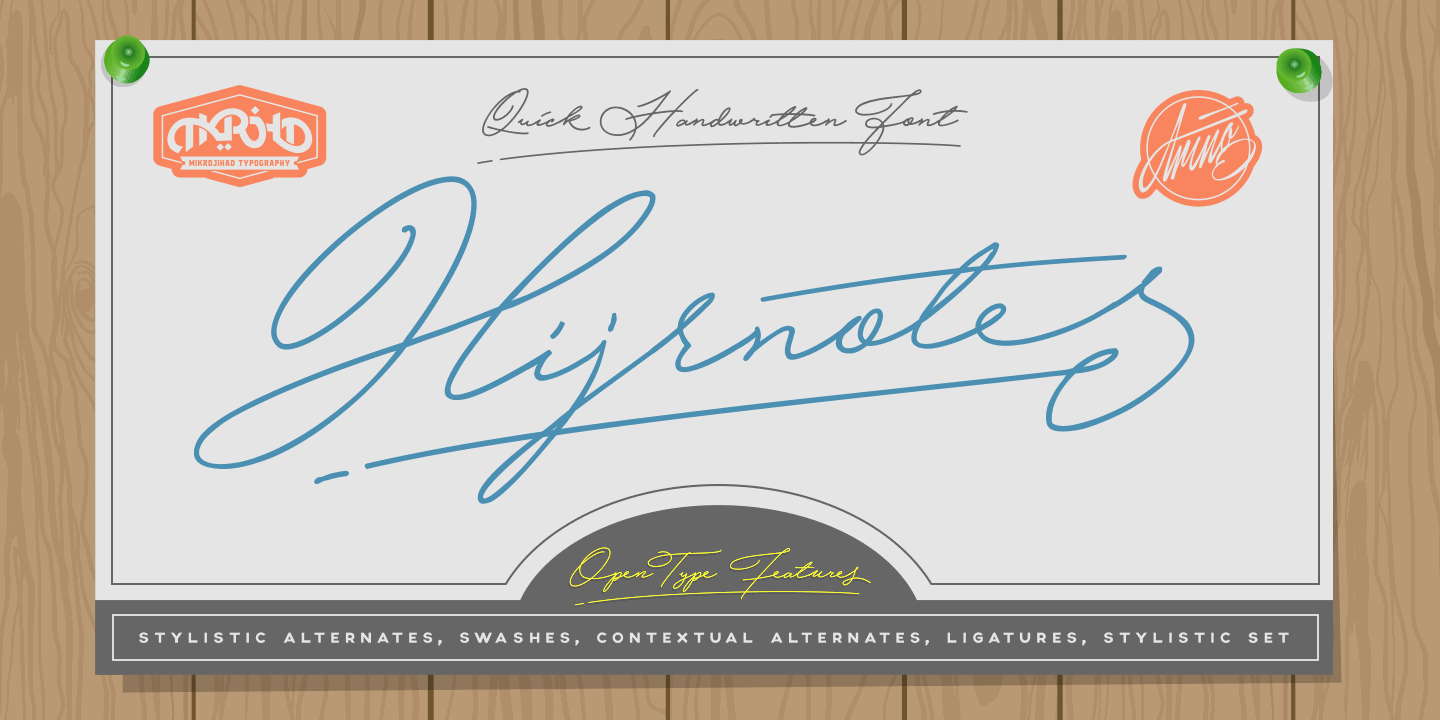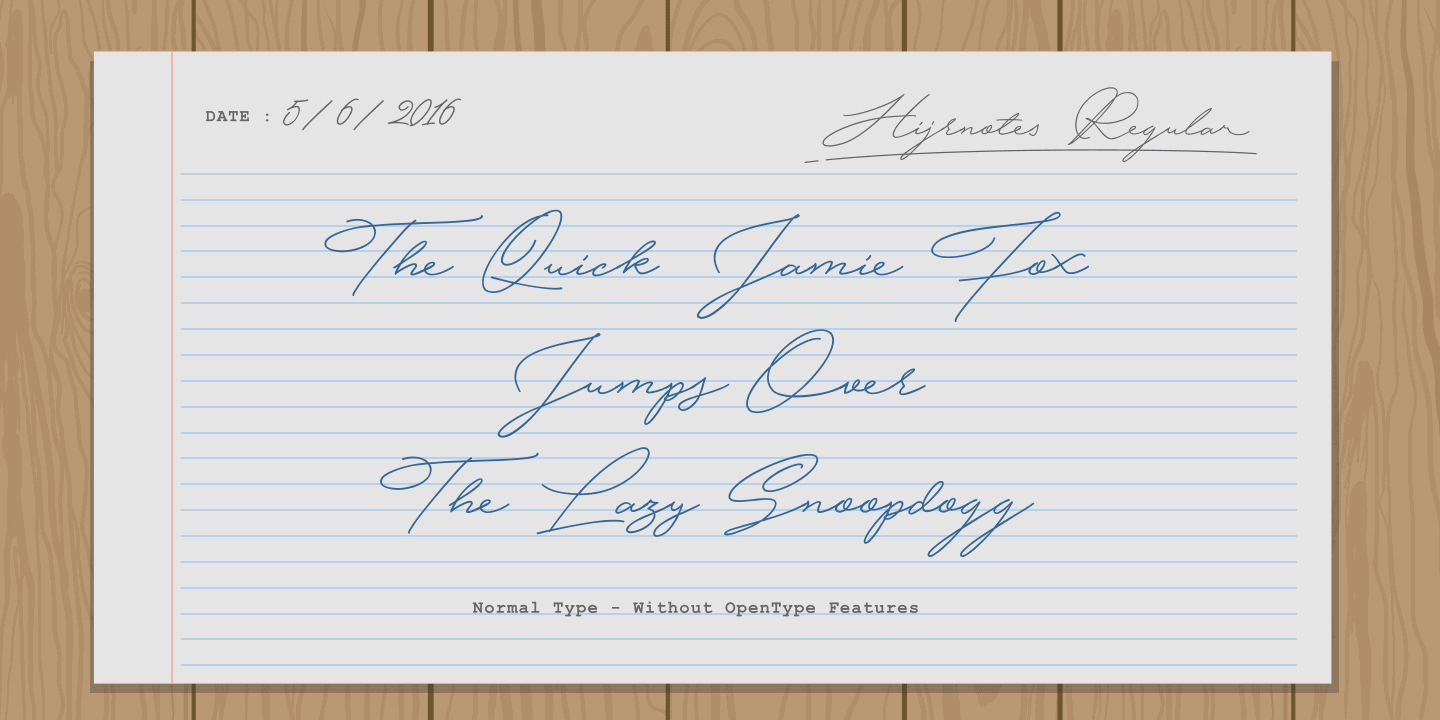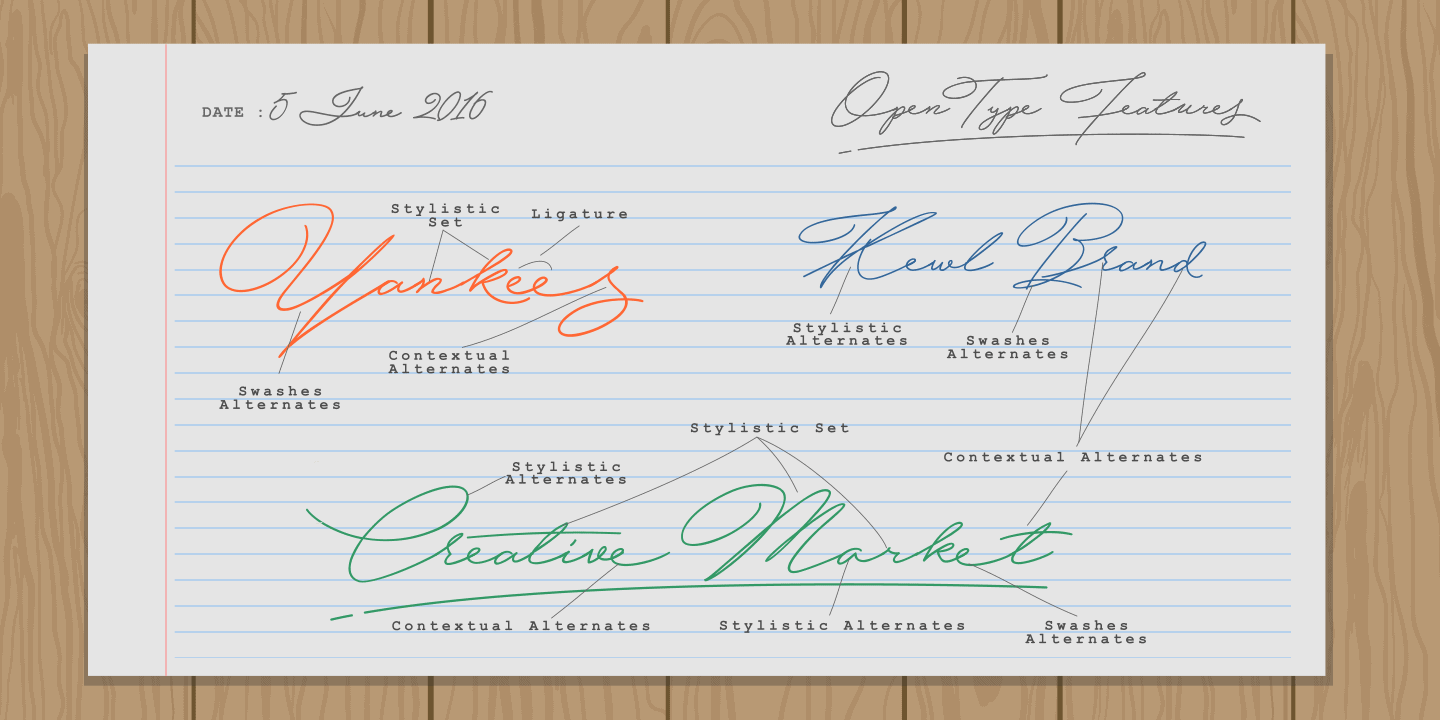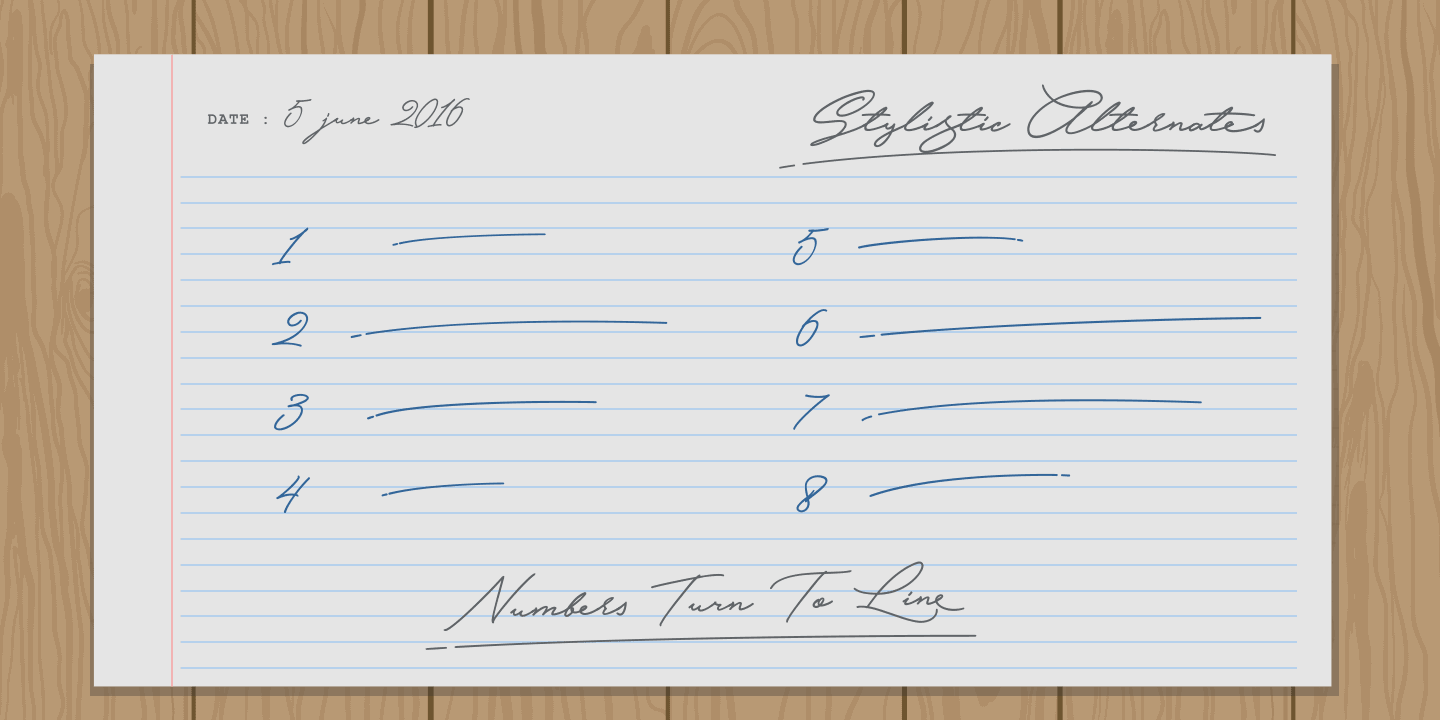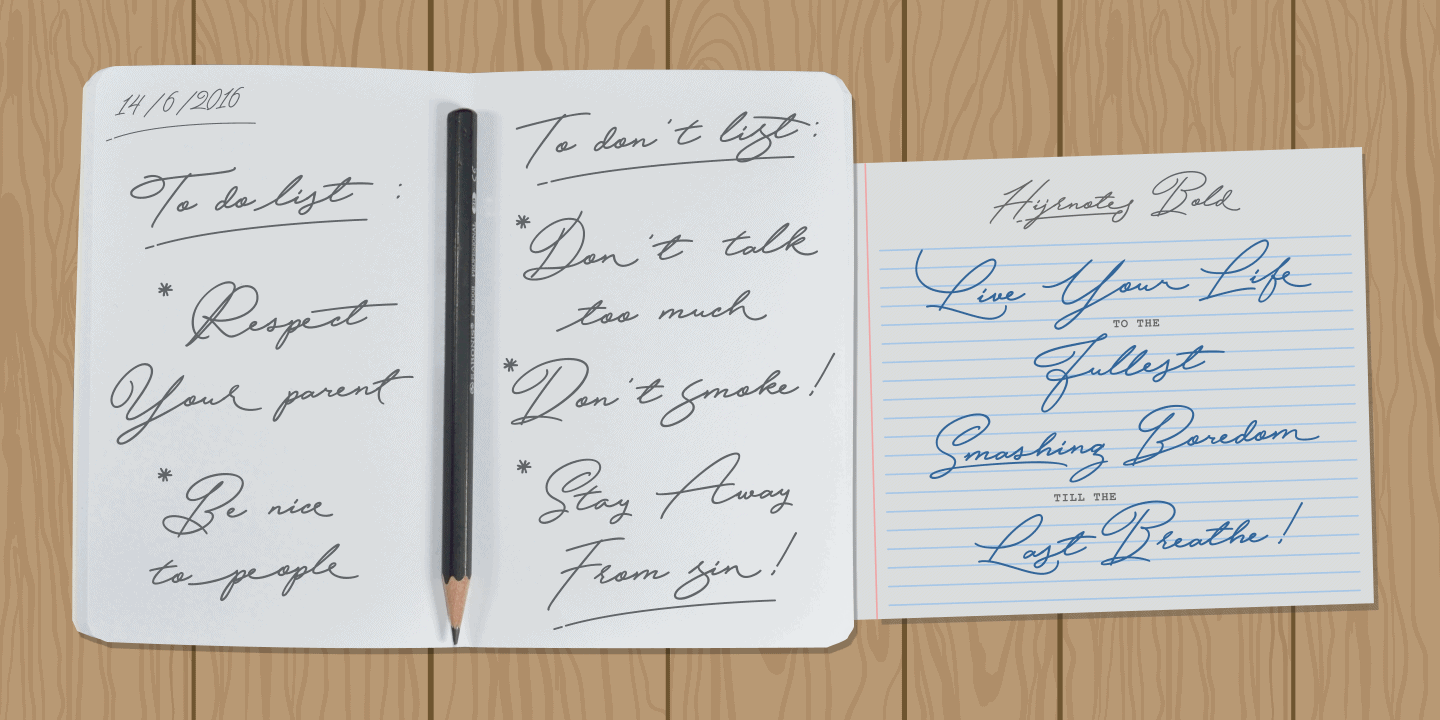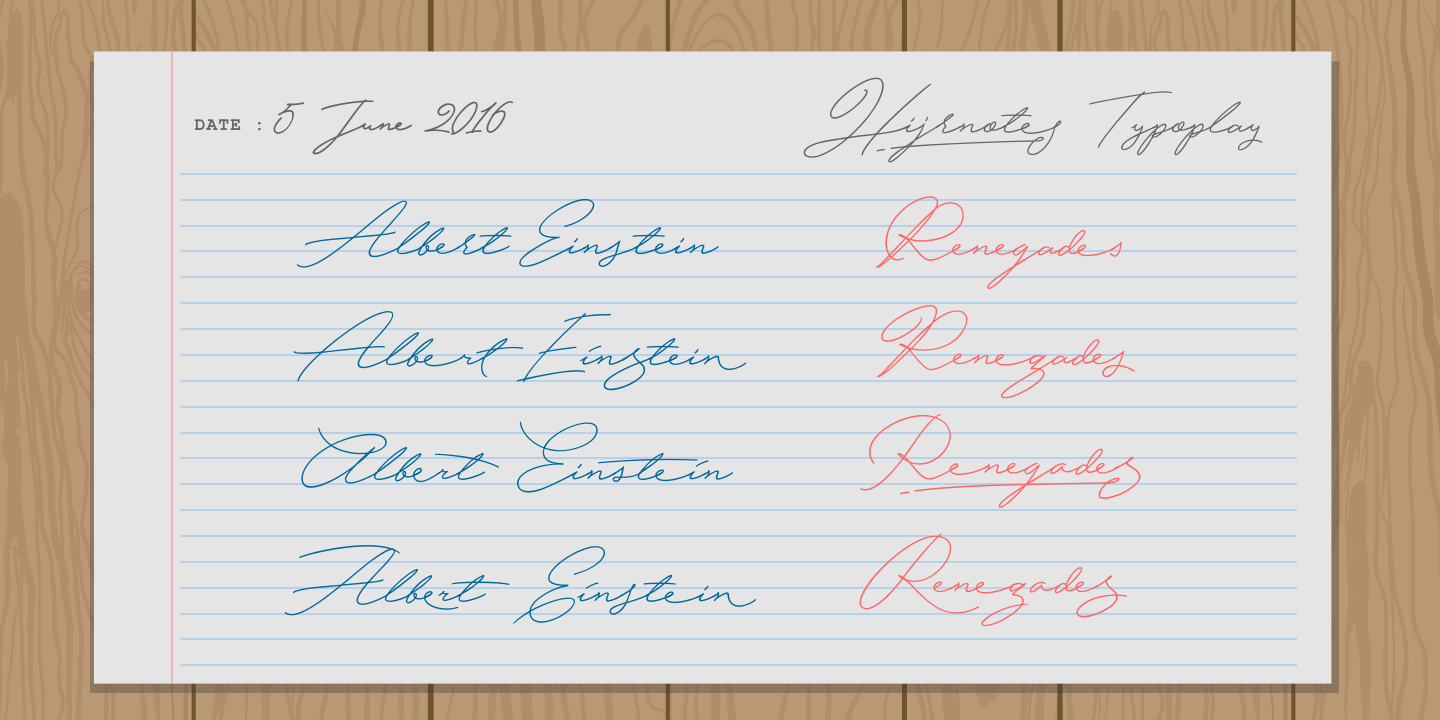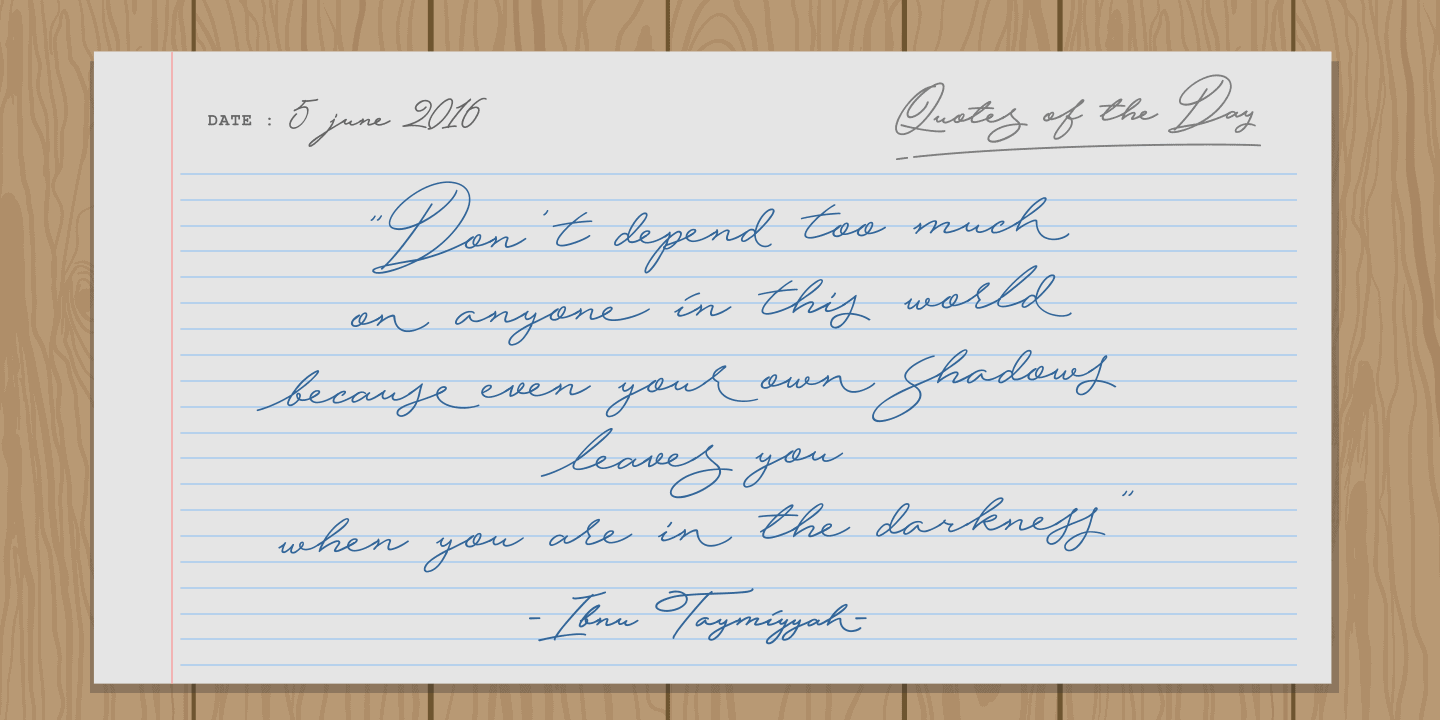
Hijrnotes
Hijrnotes Poster01
Hijrnotes Flag
Hijrnotes Poster02
Hijrnotes Poster03
Hijrnotes Poster04
Hijrnotes Poster05
Hijrnotes Poster06
Hijrnotes Poster07
Hijrnotes is a quick, handwritten and monolined script font. Big uppercase with a very small lowercase, but it is still elegantly readable. Very good for autography design, name cards, neon signs and quote typography posters and flyers.